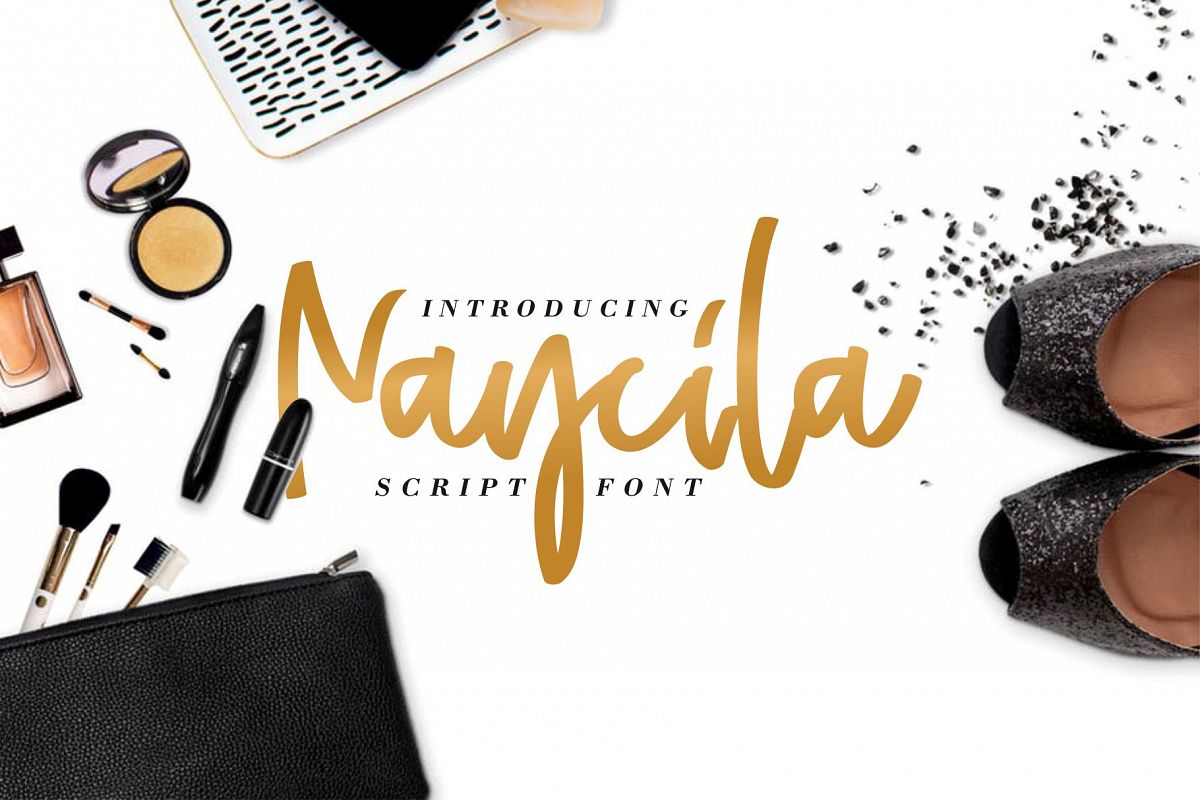
Naycila Script Font
Naycila
Naycila is a font written by a softly made woman's hand. This font is suitable for the needs of logos, flayers, brochures, posters, invitations, quote, and all design things that need a soft touch of writing.What you can:
Naycila Script Features:
• Numeral
• Punctuation
• Swash Alternate
• Standard English character